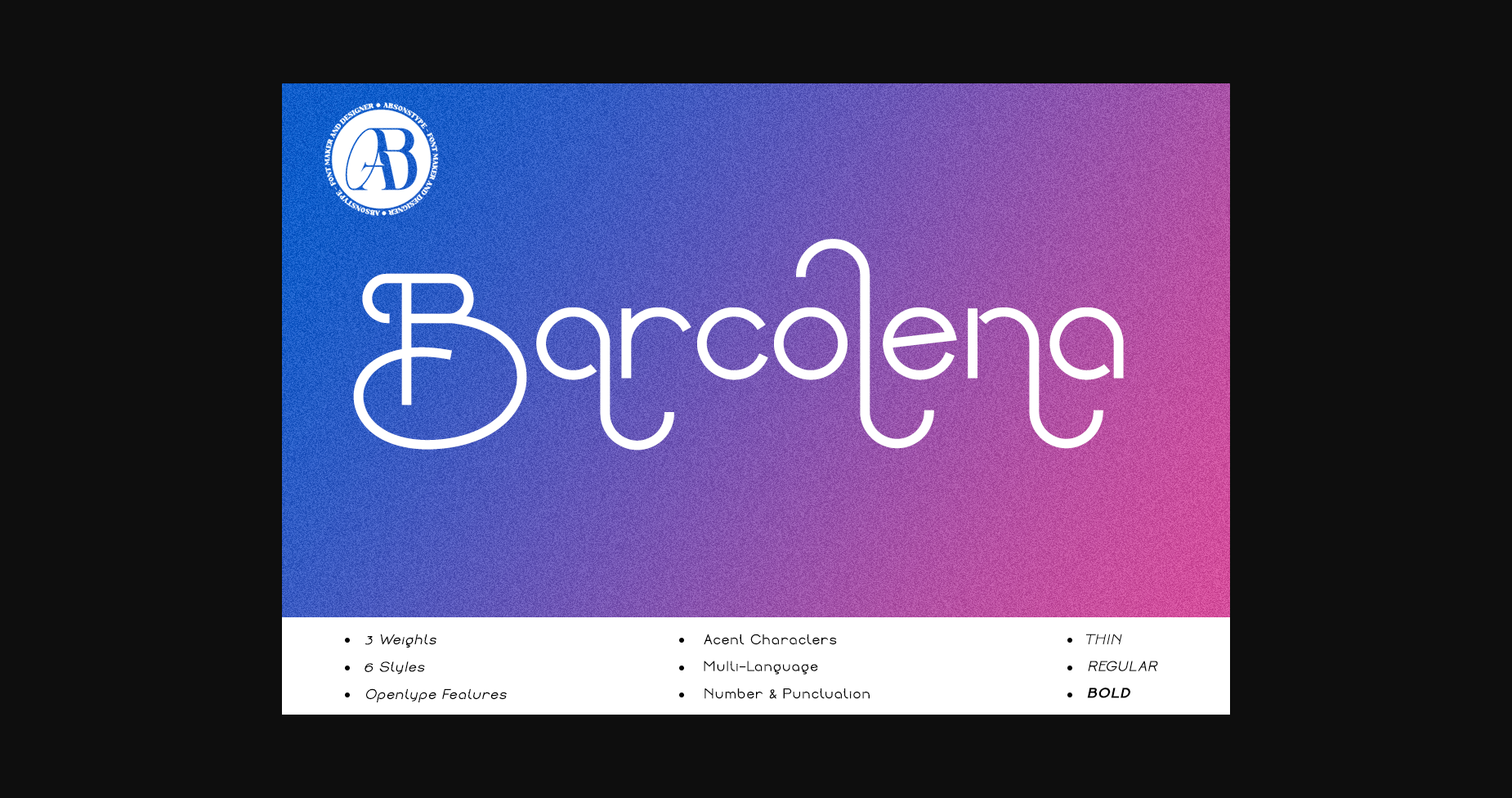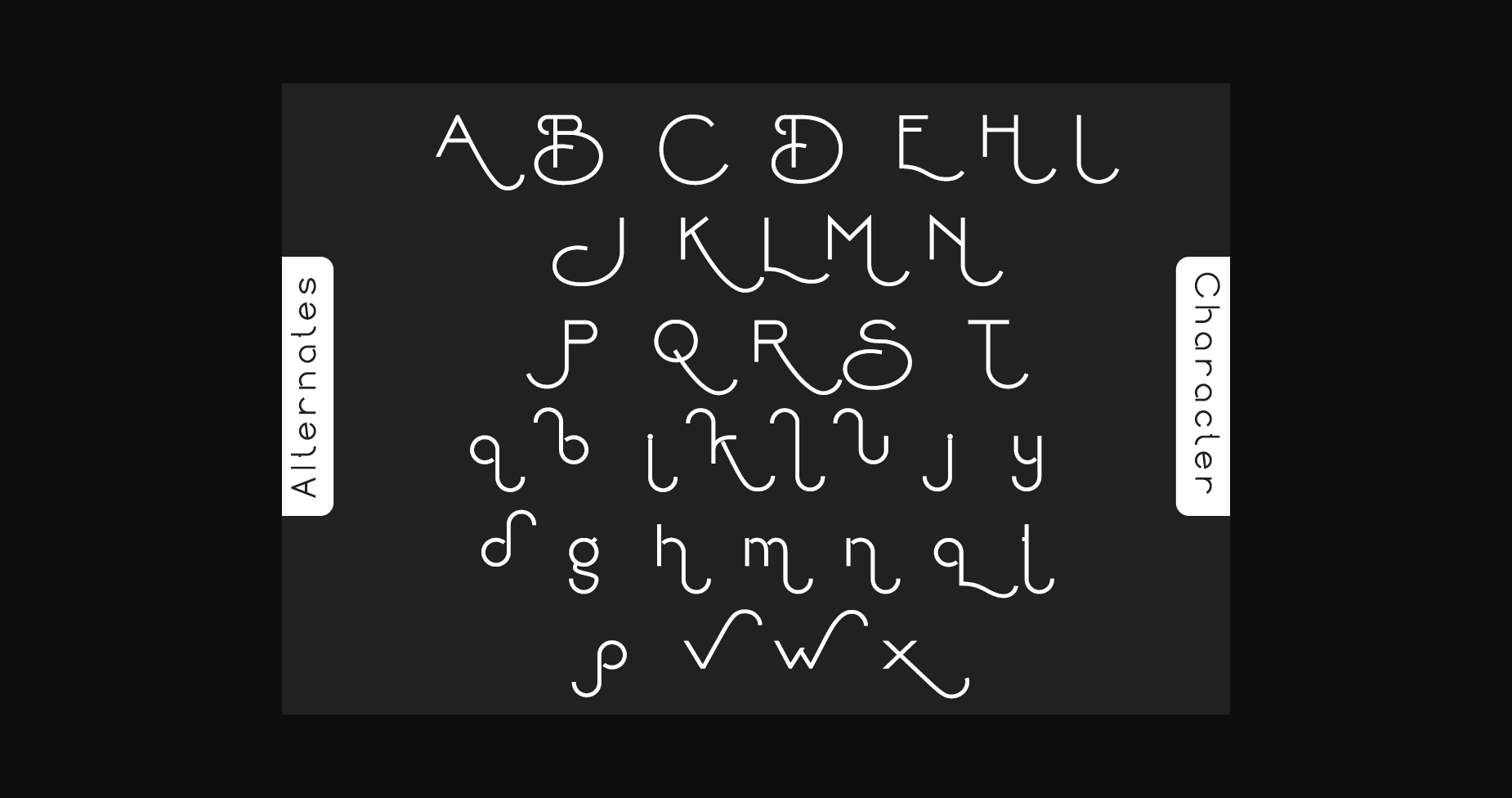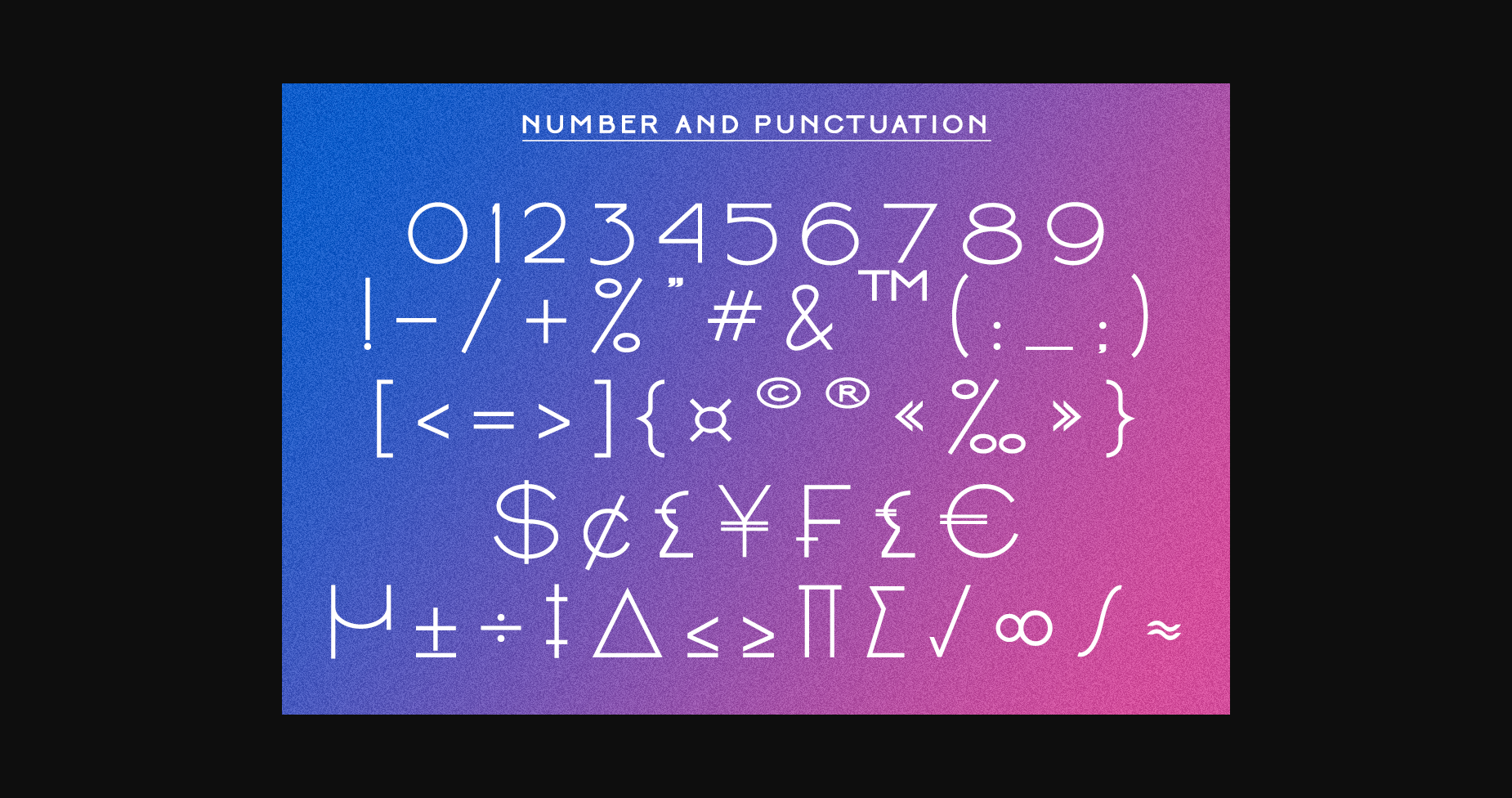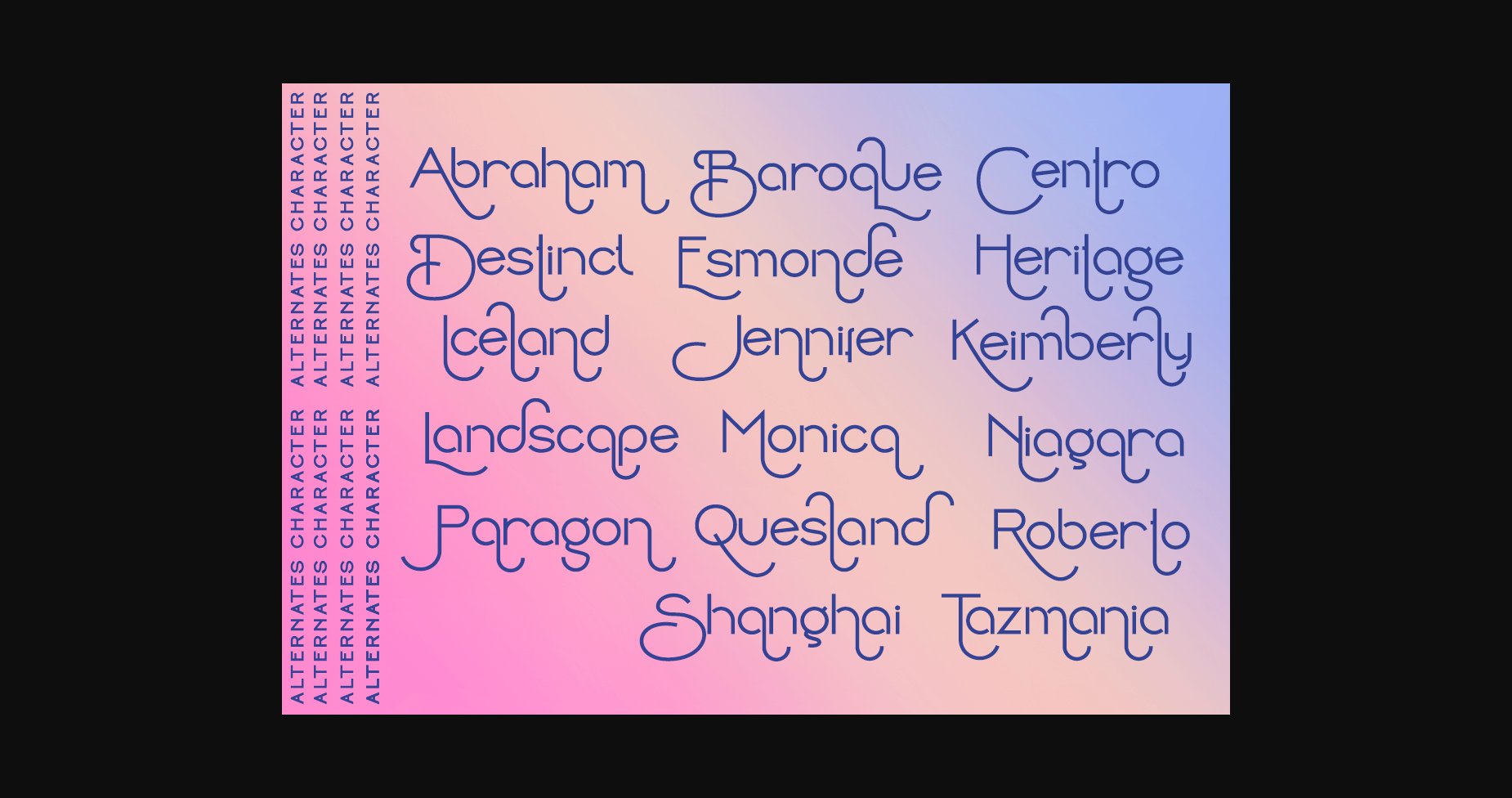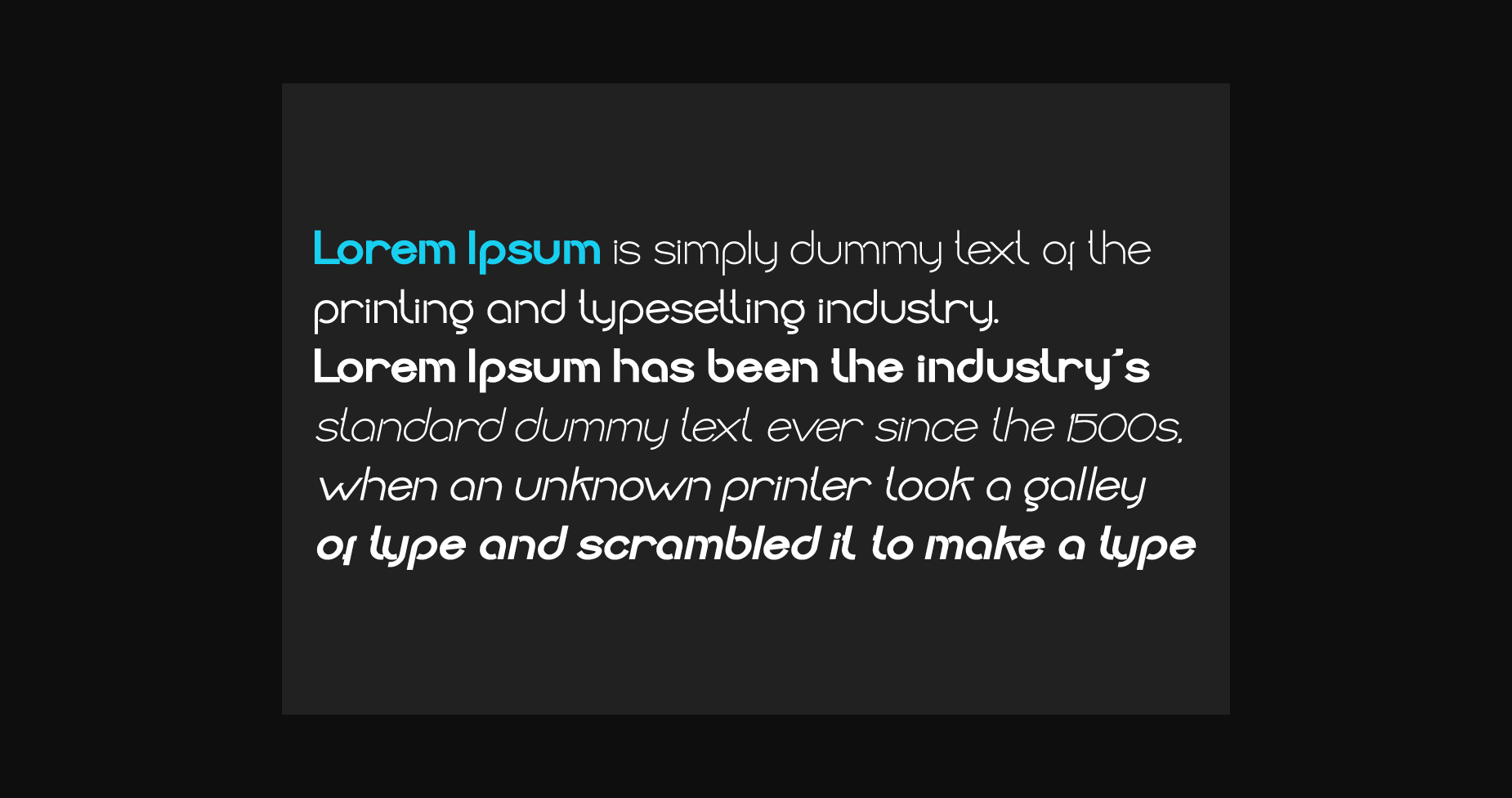
About Barcolena Font
Barcolena is a contemporary sans serif font with a sleek and sophisticated style. Its rounded edges and smooth curves give it a modern and approachable look. The font is versatile and can be used for a variety of projects, from branding to editorial design. With a range of weights and styles, Barcolena is a versatile choice for any design.